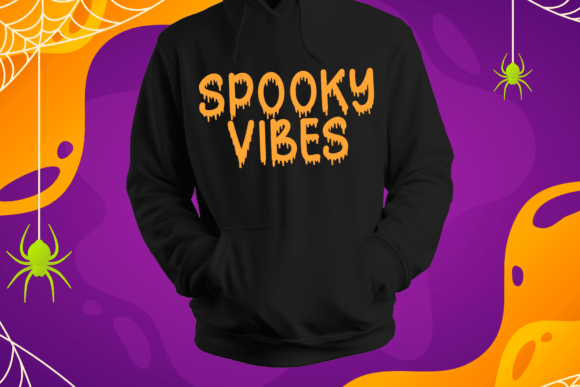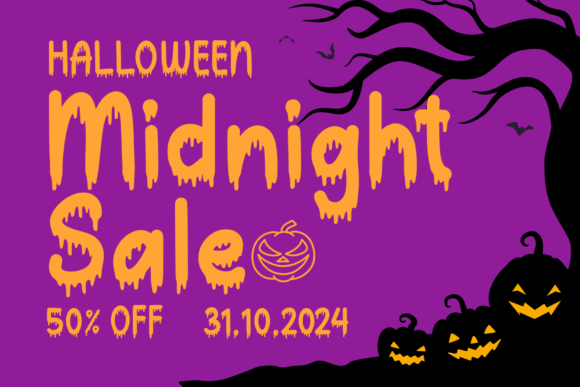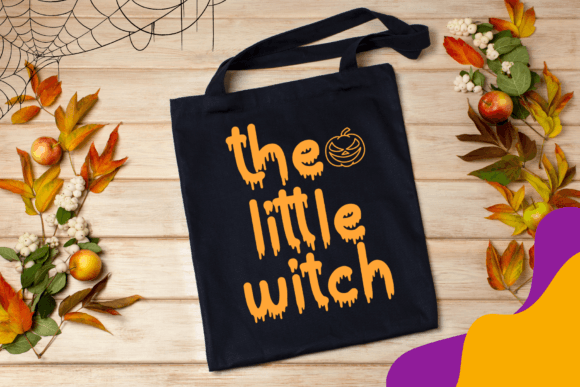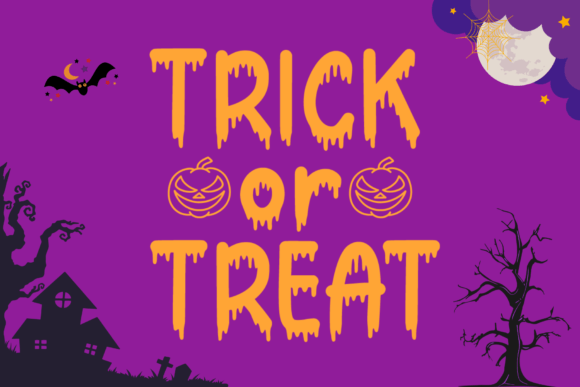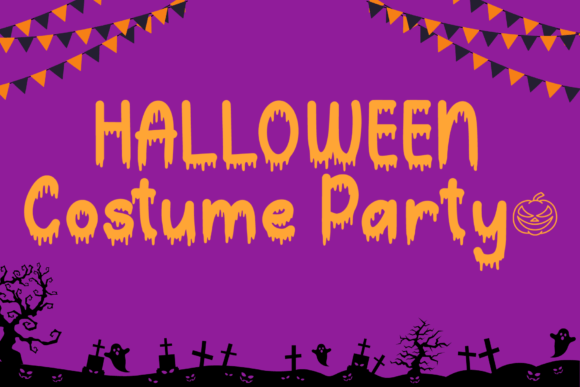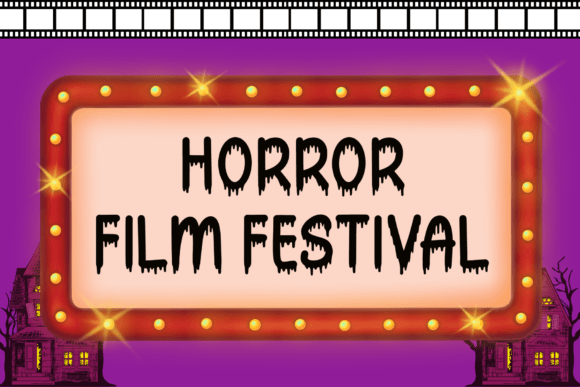
Getting Ready for a Spooky Season with Nightmare Forest Font
As the days grow shorter and the nights grow cooler, many of us can’t help but feel a thrill of excitement for the spooky season ahead. Whether you’re a seasoned designer or just a crafty enthusiast, there’s something special about creating something new and terrifying for Halloween. But, let’s be real – finding the perfect font to set the mood can be a real challenge. That’s where the Nightmare Forest Font comes in – a spine-tingling, dripping-style display font that’s guaranteed to send shivers down your spine.
This versatile font is a must-have for any creative project, from designing eye-catching posters to embroidering spooky sayings on your favorite Halloween gear. With its high-quality design and transparent background, you can easily use it for free download and incorporate it into your designs with ease. As a valuable design resource, the Nightmare Forest Font is sure to be a game-changer for your next spooky project.
- Designed with a unique, eerie aesthetic perfect for horror-themed projects or dark fantasy art.
Honest Review: Nightmare Forest Font
I recently stumbled upon the Free Nightmare Forest Font while searching for a unique design resource for a creative project. I must say, I was impressed by its haunting charm and versatility.
- ✨ Unique and eerie design that’s perfect for horror-themed projects or anything that requires a dark atmosphere.
- ⚠️ Limited character set, which may not be suitable for projects that require a wide range of characters.
- ⚠️ Not suitable for projects that require a lot of text, as the font can be quite ornate and may be difficult to read in large quantities.
Overall, I’m impressed by the Nightmare Forest Font’s unique design and high-quality execution. It’s a great design resource for anyone looking to add a touch of eeriness to their creative project. Just be aware of its limitations and use it wisely.
The Nightmare Forest Font is perfect for Halloween-themed projects, horror movie posters, and spooky decorations. Its high-quality design and transparent background make it a valuable design resource for any creative project that requires a touch of eeriness.